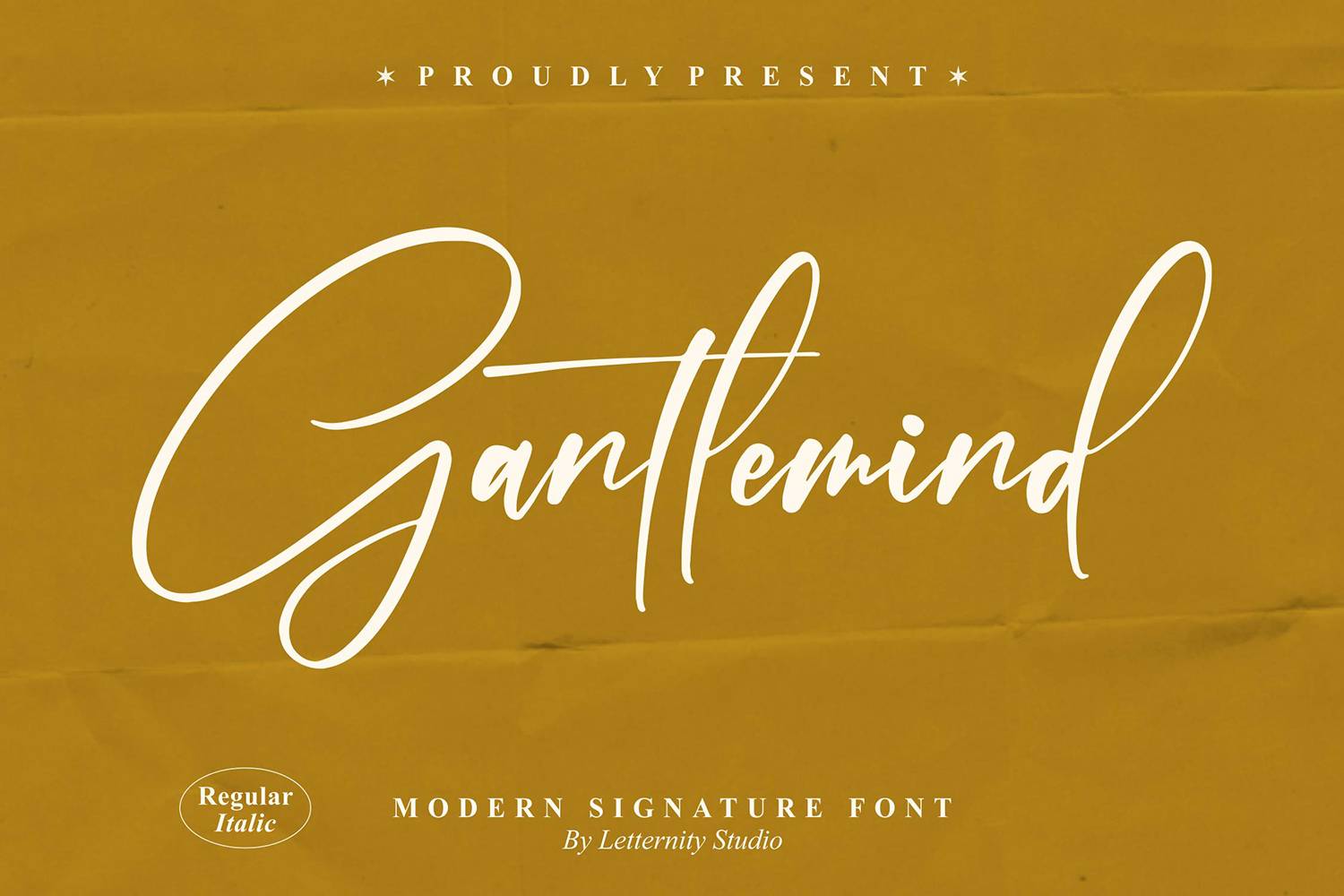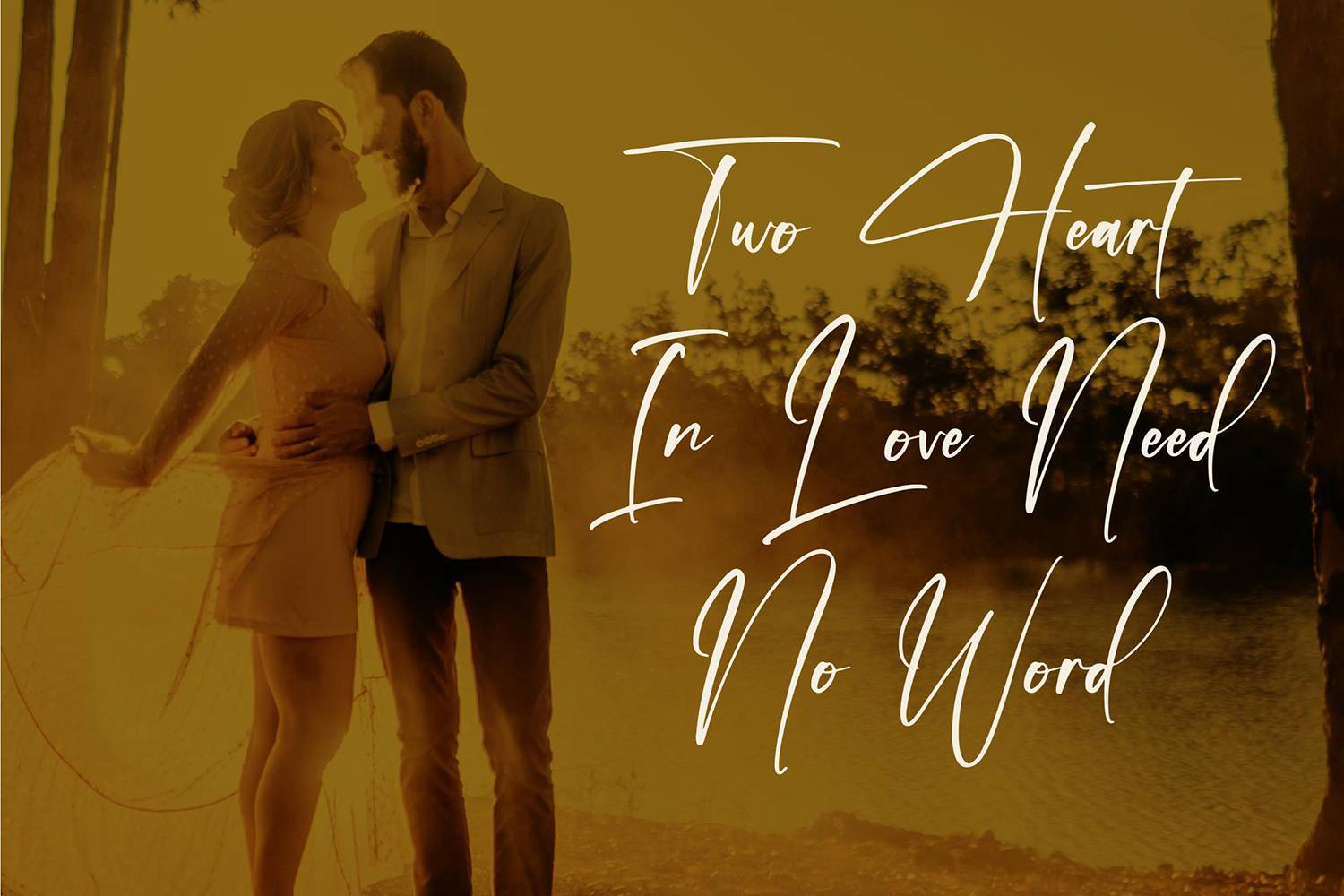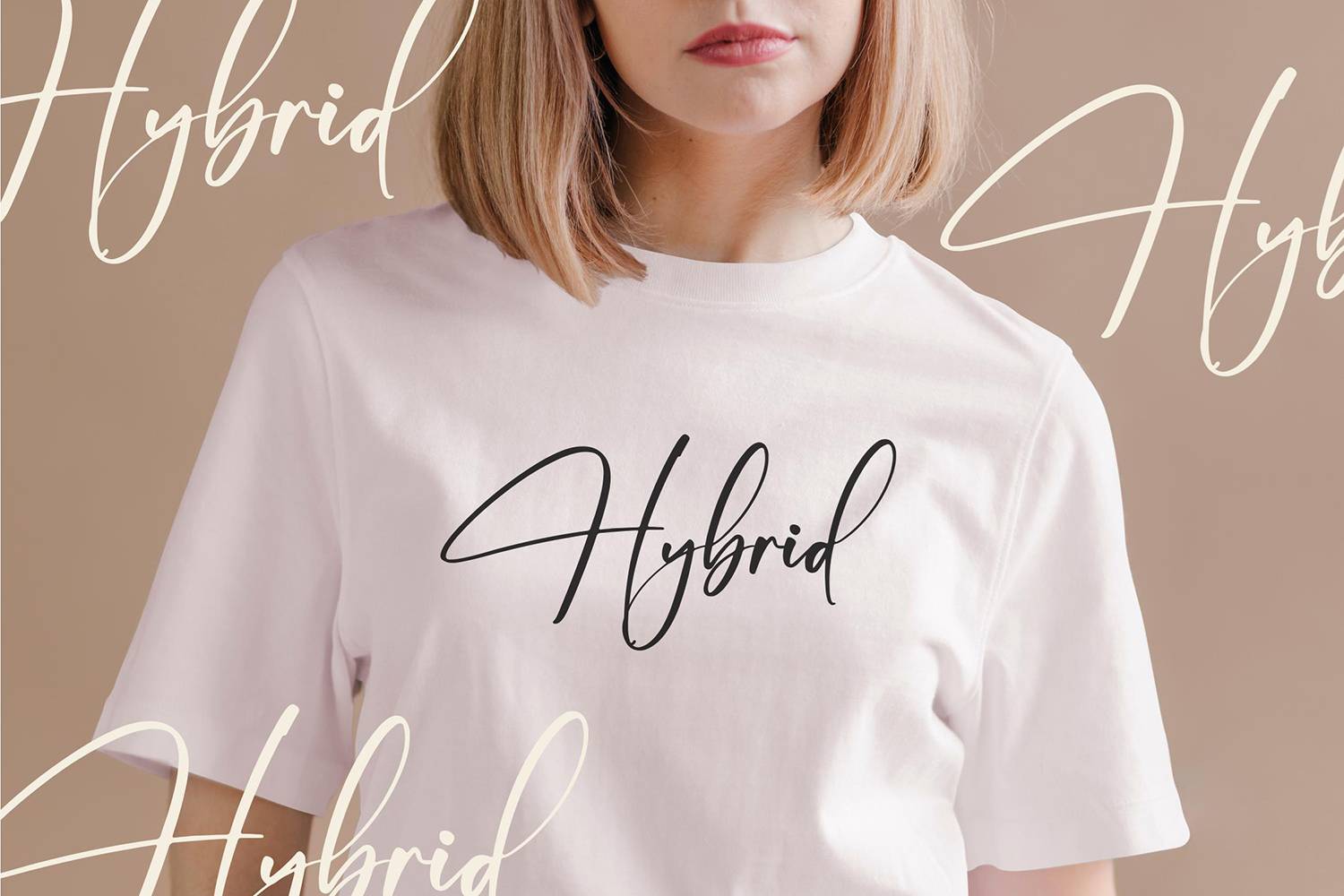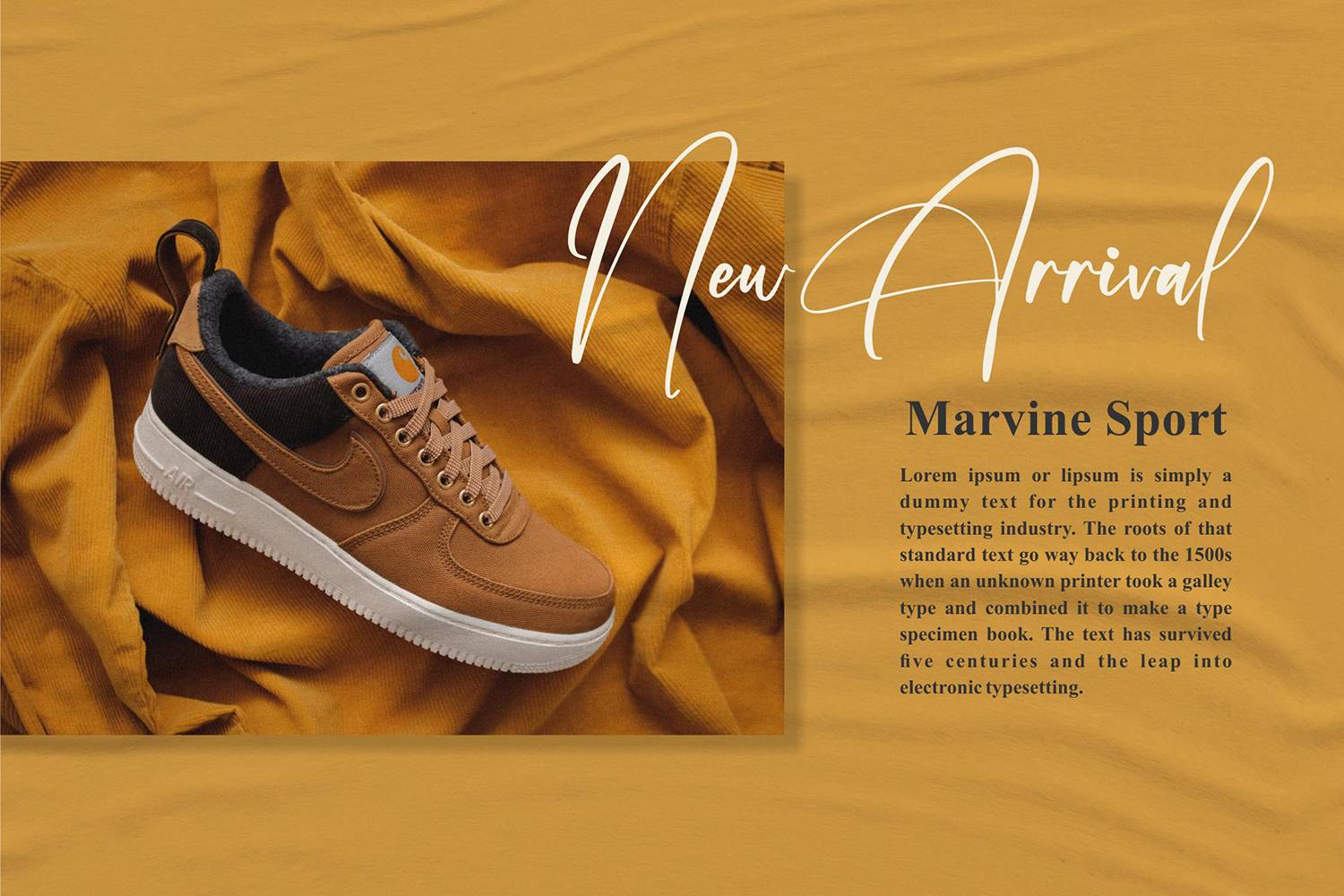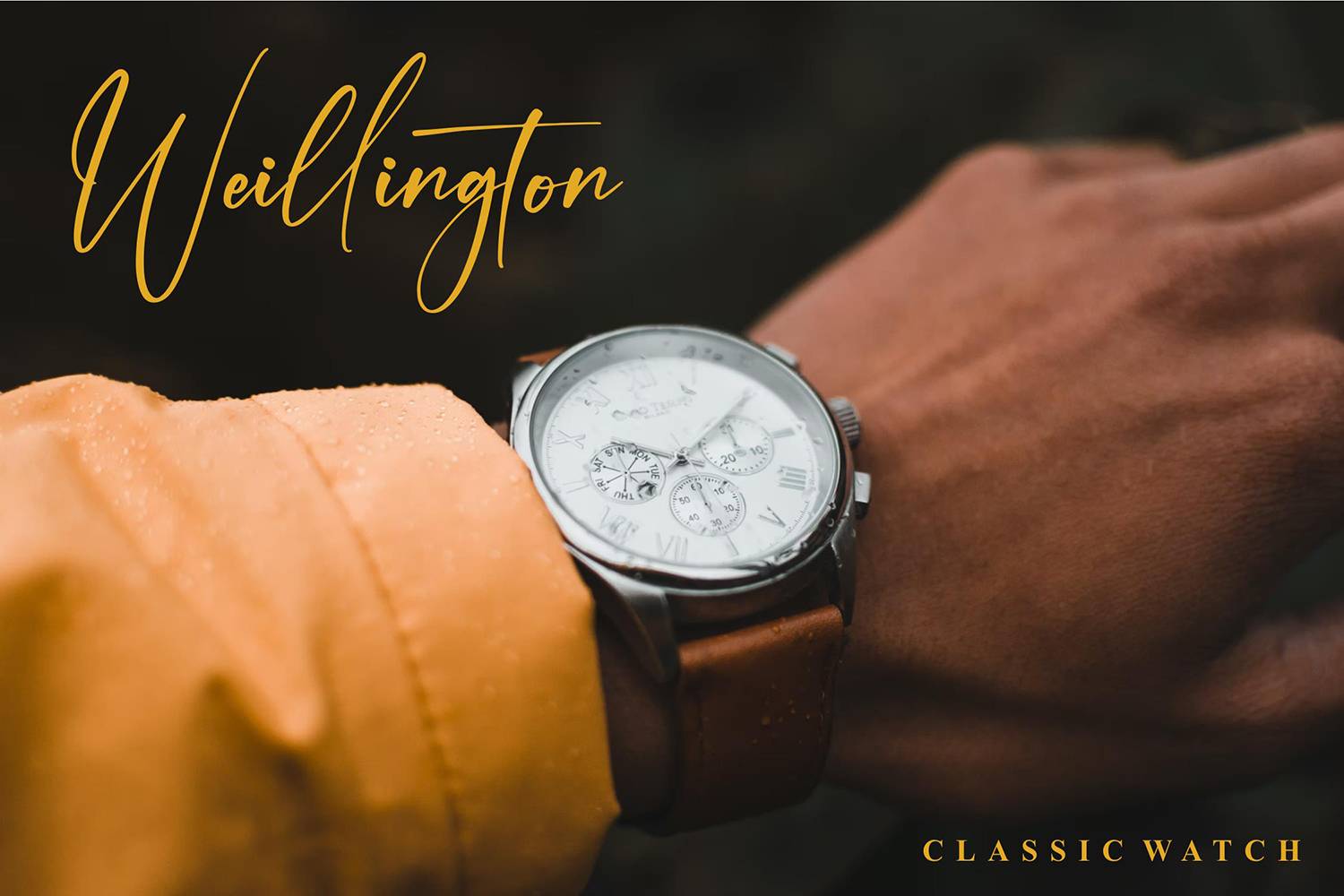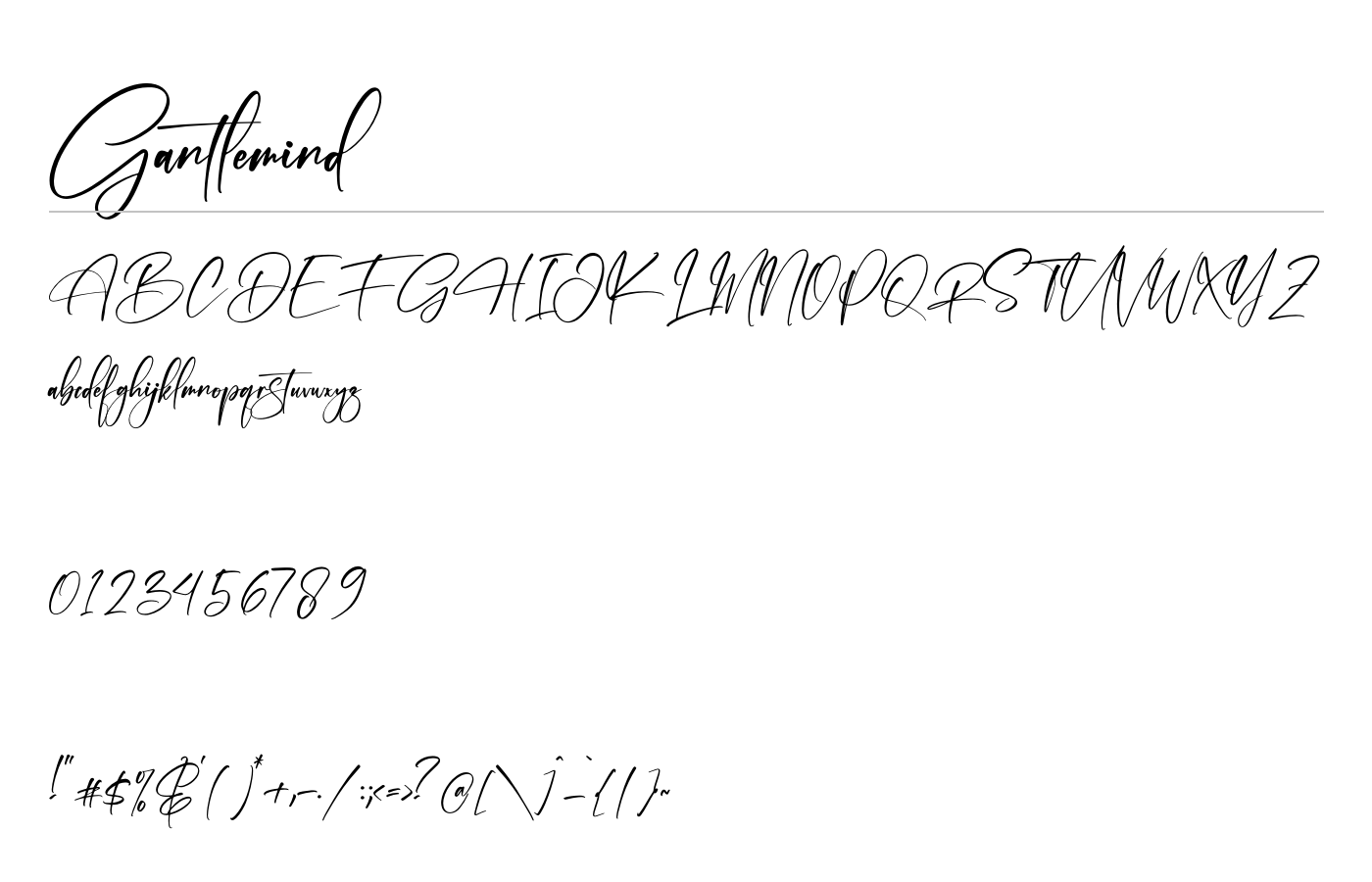
Gantlemind is an elegant script font that features a graceful, flowing handwritten style with fine, delicate strokes and a natural, casual feel. Its tall, slender letterforms and consistent thin lines create a sophisticated yet approachable look, perfect for luxury branding, wedding invitations, and stylish editorial design. This font works best where a personal, refined touch is needed to convey charm and modern elegance.
Gantlemind Font
About Gantlemind Font